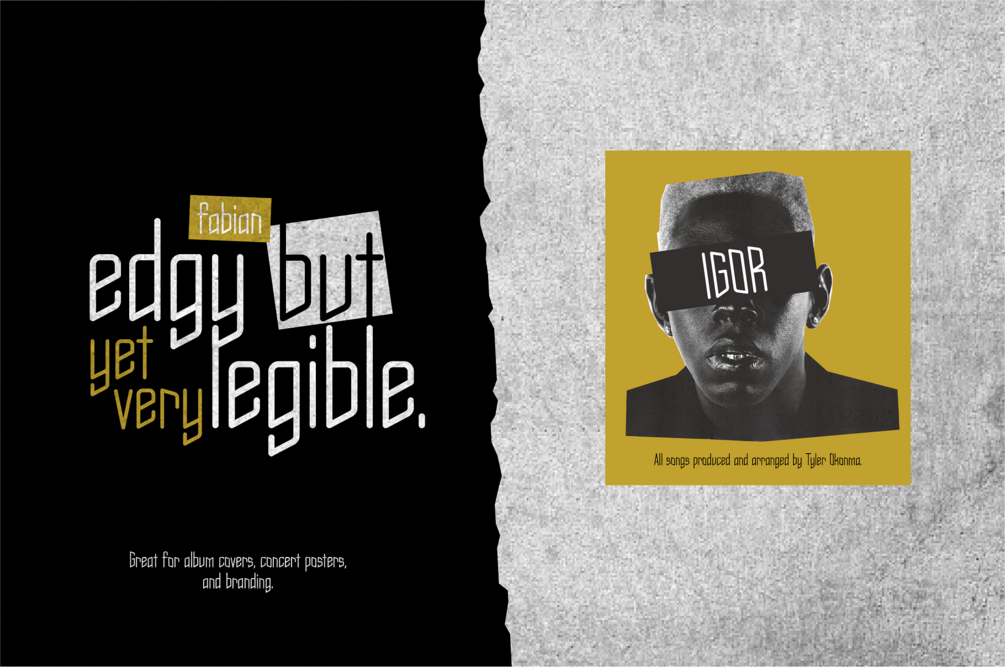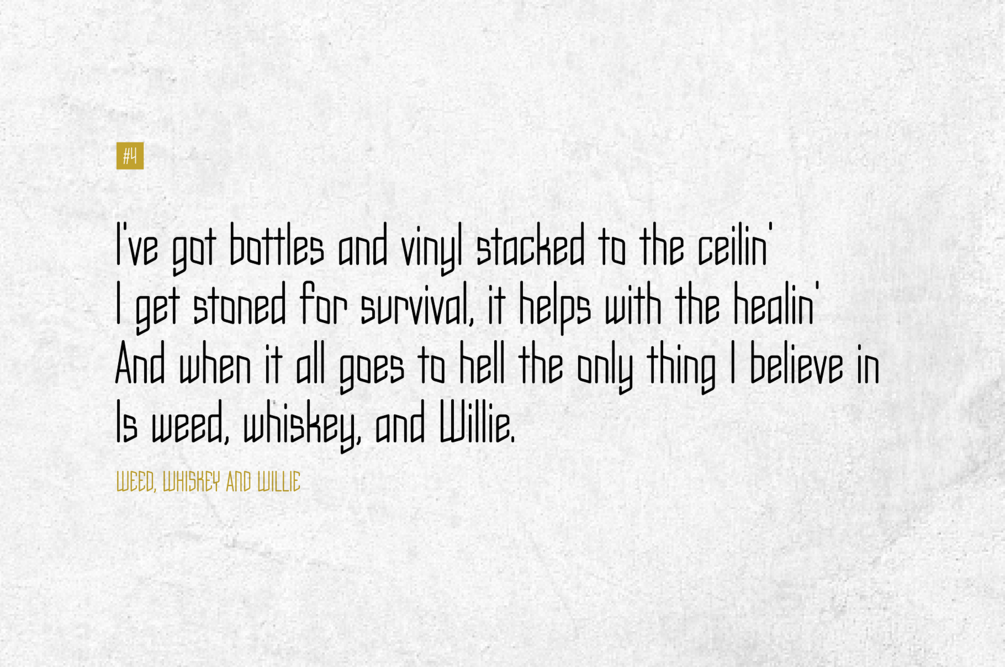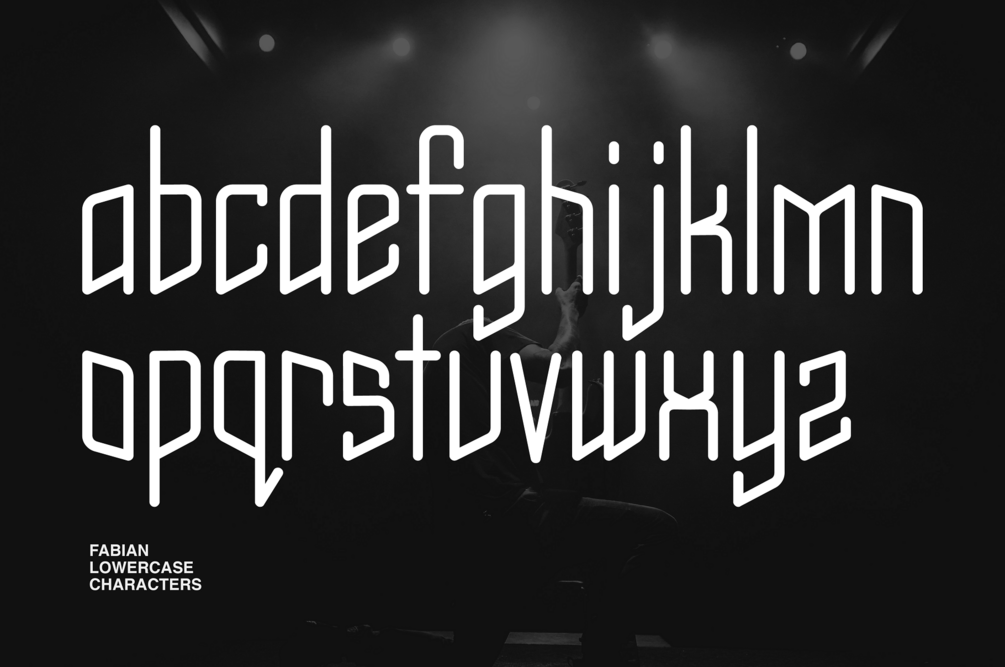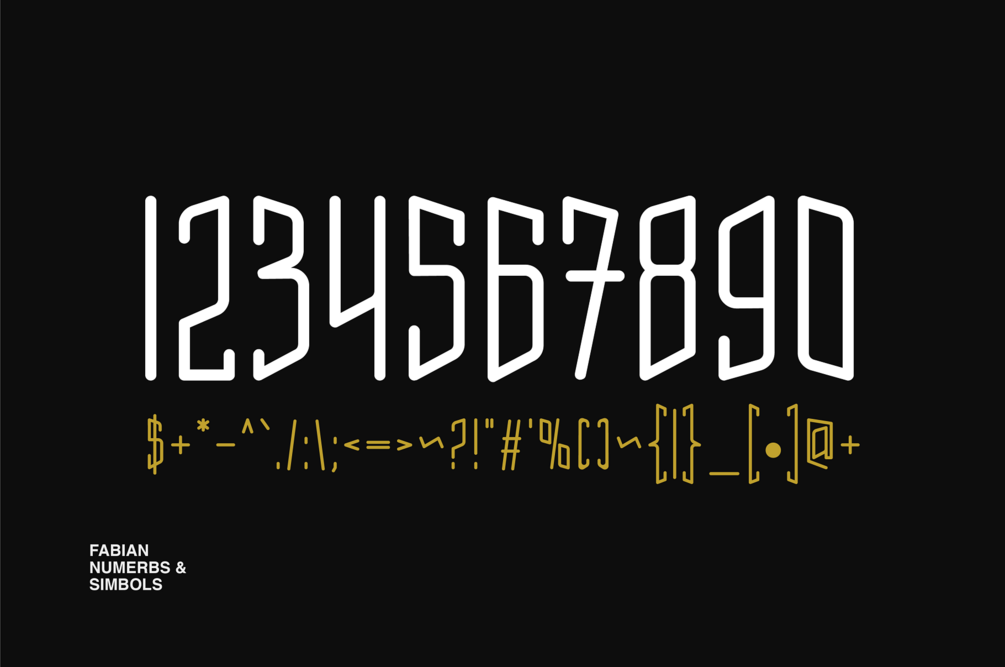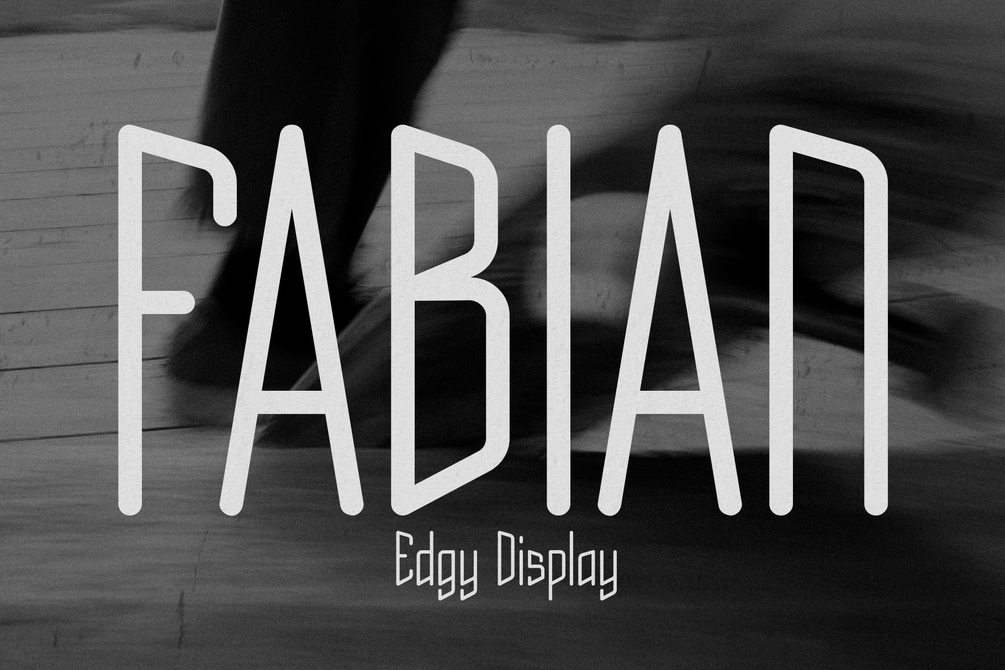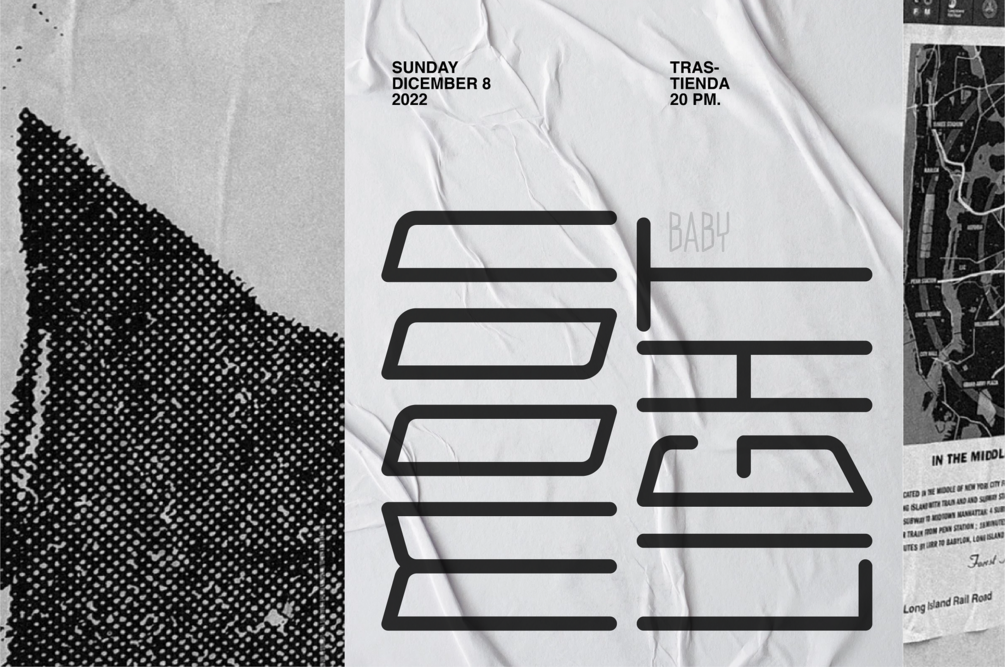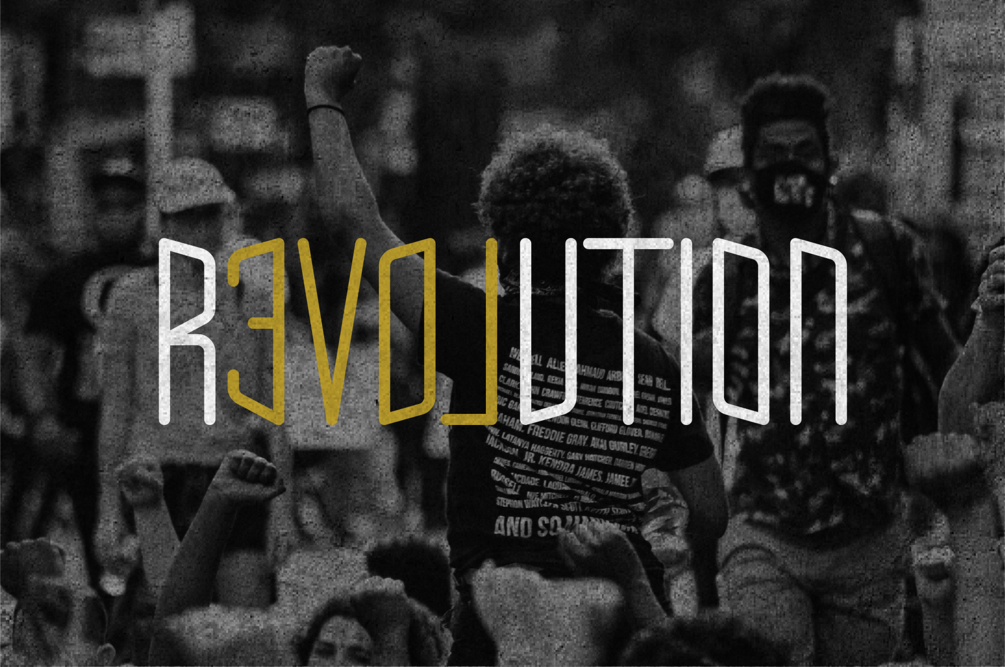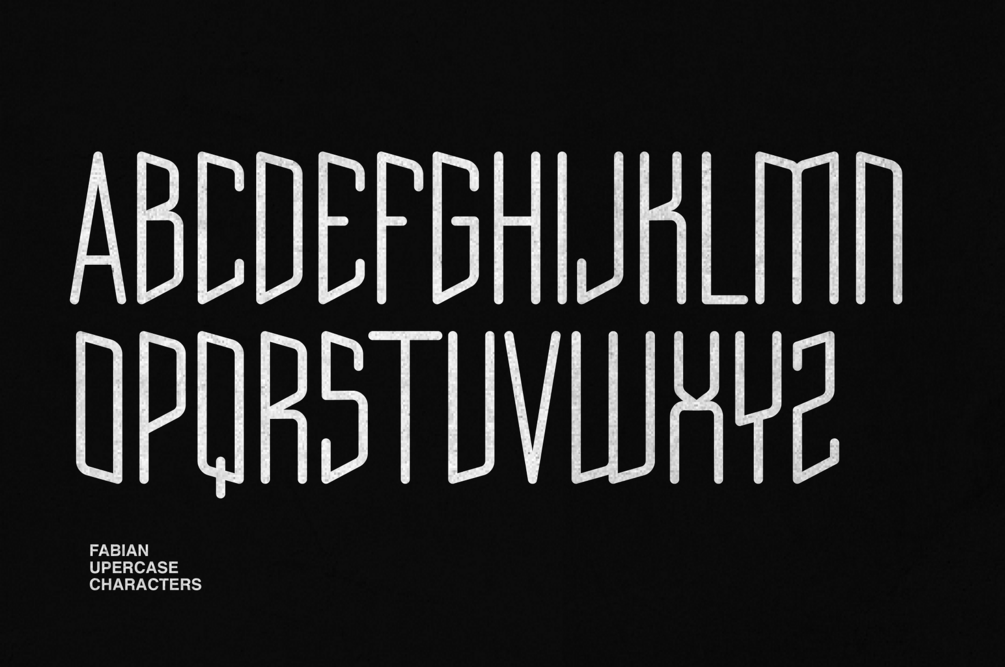
Fabian - Edgy Punk Display
Fabian is an edgy punk display typeface. It's distinctive look is perfect for posters, album covers, apparel, logos, headlines, and more. It was inspired by the 1990s punk rock movement. This modern font includes upper & lowercase letters as well as punctuations and numerals. To get a feel for it, test it our below.